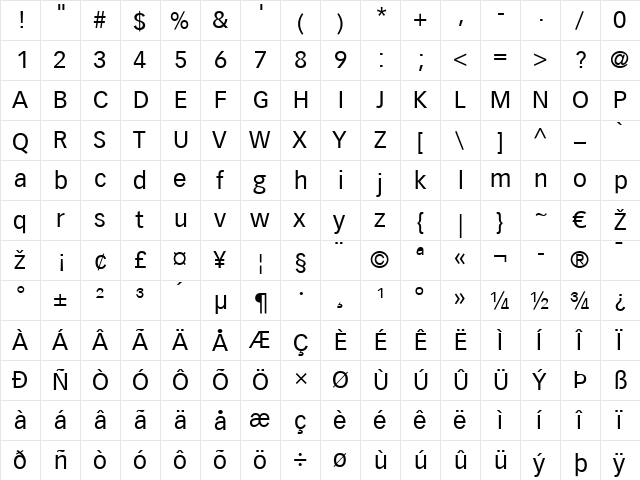
Vectora LT Roman Regular
Design Context for Vectora LT Roman Typeface
Vectora LT Roman takes a measured approach to typography — its balanced proportions and neutral character make it a reliable workhorse for both digital and print work. Its slender proportions lend an understated elegance to any composition.